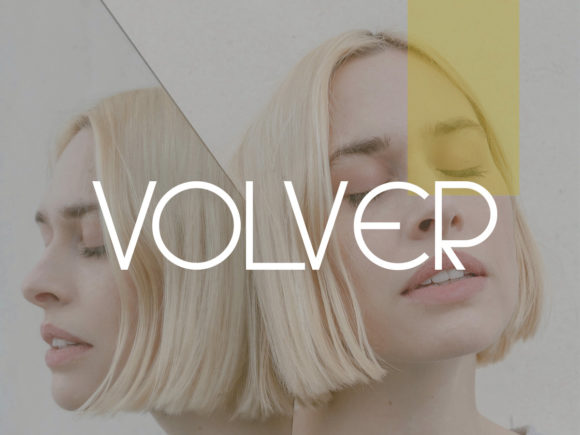
Presenting Volver Font: Your Gateway to Design Distinction!
Unleash your creative genius with Volver Font, a display font crafted to captivate and inspire. Its minimalist and elegant design effortlessly elevates your headlines, logos, and other prominent text elements.
Created by the esteemed Design Stag, Volver seamlessly adapts to a myriad of projects, from sleek websites to eye-catching posters. Its versatility empowers you to convey your message with impact and style.
Indulge in the satisfaction of witnessing your words transform into works of art. Volver's clean lines and subtle curves create a timeless aesthetic that resonates across industries. Let your imagination soar as you explore the endless possibilities this remarkable font offers.